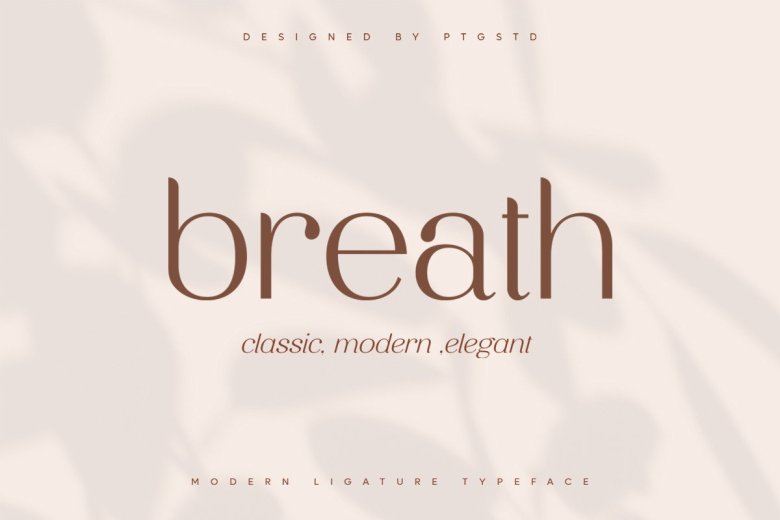
Breath Font
Breath is a stylish and incredibly elegant sans serif font. Masterfully designed to become a true favorite, this font has the potential to bring each of your creative ideas to the highest level! Breath font will be perfect for fashion branding or editorial designs. Breath typeface is PUA encoded which means you can access all of them with ease!
Breath Sans Serif Font